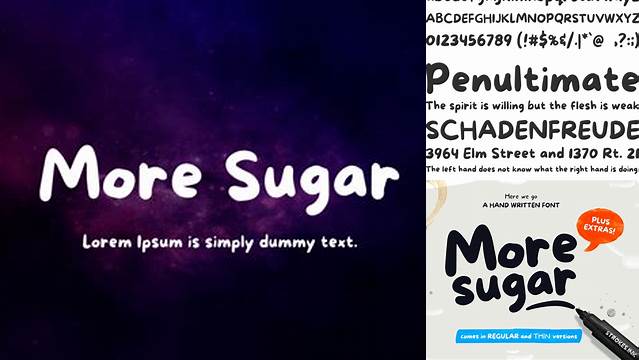
Hey guys! Are you on the hunt for that perfect, eye-catching font to give your projects some extra oomph? Look no further! In this guide, we'll dive deep into the world of More Sugar Bold font, a typeface that's been making waves in the design community. We're going to cover everything you need to know, from what makes it so special to where you can snag it for free. So, grab a cup of coffee, settle in, and let's get started on this sweet journey into the world of typography!
When it comes to design, the font you choose can make or break your project. A great font can elevate your work, adding personality and flair, while a poor choice can leave your audience feeling underwhelmed. More Sugar Bold has emerged as a popular option for designers seeking a font that's both playful and impactful. Its bold, rounded letters exude a sense of fun and approachability, making it perfect for a wide range of applications. Whether you're working on a logo, a poster, a website, or any other creative endeavor, this font can help you make a statement. In the following sections, we'll explore the unique characteristics of More Sugar Bold, discuss its best uses, and guide you through the process of downloading and installing it for free. We'll also delve into some important considerations regarding font licensing and usage rights, ensuring that you can use this fantastic font with confidence and peace of mind. So, let's get into the details and discover why More Sugar Bold might just be the perfect addition to your font library.
What is More Sugar Bold Font?
So, what exactly is More Sugar Bold? Well, it's a display font that's characterized by its bold weight, rounded terminals, and playful personality. Think of it as the font equivalent of a warm hug – friendly, inviting, and full of character. Its distinct style makes it ideal for headlines, logos, posters, and other design elements where you want to grab attention and make a lasting impression. But, what makes it stand out from the sea of other bold fonts out there? It's the unique combination of boldness and softness. The rounded edges give it a friendly, approachable feel, while the thick strokes ensure that it commands attention. This balance makes it versatile enough to be used in a variety of projects, from children's books to branding materials for creative businesses. More Sugar Bold is more than just a font; it's a statement. It's a way to inject personality into your designs and create a visual identity that resonates with your audience. In this section, we'll delve deeper into the specific characteristics that make More Sugar Bold so special, including its letterforms, spacing, and overall aesthetic. We'll also explore the history and origins of the font, giving you a better understanding of the design principles behind it. By the end of this section, you'll have a clear picture of what More Sugar Bold is all about and why it's become such a popular choice among designers.
Let's break down the key features that make More Sugar Bold such a standout font. The most obvious characteristic is its boldness. The thick strokes of the letters give it a strong presence, ensuring that your text will be highly visible and impactful. This makes it an excellent choice for headlines, titles, and other elements where you need to command attention. Another defining feature is its rounded terminals. Unlike fonts with sharp, angular edges, More Sugar Bold features soft, rounded ends on its letters. This gives it a friendly, approachable feel, making it perfect for designs that need to convey warmth and playfulness. The letterforms themselves are also quite unique. They have a slightly whimsical quality, with subtle curves and variations that add character and personality. This prevents the font from feeling too generic or predictable. The spacing between letters is also carefully considered. The font has a generous amount of space, ensuring that the letters don't feel cramped or crowded. This improves readability and gives the text a more open and airy feel. Furthermore, the overall aesthetic of More Sugar Bold is one of fun and creativity. It's a font that doesn't take itself too seriously, making it a great choice for projects that need a touch of whimsy. It's versatile enough to be used in a variety of contexts, but it always brings a sense of joy and playfulness to the table. In the next section, we'll explore some specific examples of how More Sugar Bold can be used in different design projects. We'll look at how its unique features can be leveraged to create visually stunning and effective designs.
Best Uses for More Sugar Bold Font
Alright, so you know what More Sugar Bold is and what makes it special, but where can you actually use it? The possibilities are pretty vast, but let's explore some of the best use cases for this fun and versatile font. One of the most popular applications is in branding. More Sugar Bold is perfect for creating logos and other visual elements that need to convey a sense of playfulness and approachability. Think of businesses that cater to children, creative agencies, or any brand that wants to project a friendly image. It can also shine in headlines and titles. Its bold weight and unique letterforms make it ideal for grabbing attention and making a statement. Whether you're designing a poster, a website header, or a social media graphic, More Sugar Bold can help your message stand out from the crowd. If you are working on packaging design, this font can add a touch of personality to your product labels and boxes. It's especially well-suited for food products, toys, and other items that target a younger audience or have a playful vibe. This font is also great for posters and flyers. Its eye-catching design ensures that your message will be seen and remembered. Use it for event promotions, announcements, or any other type of visual communication where you need to make a big impact. Another awesome use case is in social media graphics. More Sugar Bold can help your posts stand out in a crowded feed. Use it for captions, quotes, or any other text elements that you want to highlight. In addition to these specific examples, More Sugar Bold can also be used in a variety of other design projects, such as children's books, greeting cards, and even website body text (although it's best used sparingly in longer paragraphs). The key is to consider the overall tone and message of your project and determine whether the playful, friendly vibe of More Sugar Bold is a good fit. In the next section, we'll guide you through the process of finding a free download of More Sugar Bold and installing it on your computer.
Conclusion and Final Thoughts